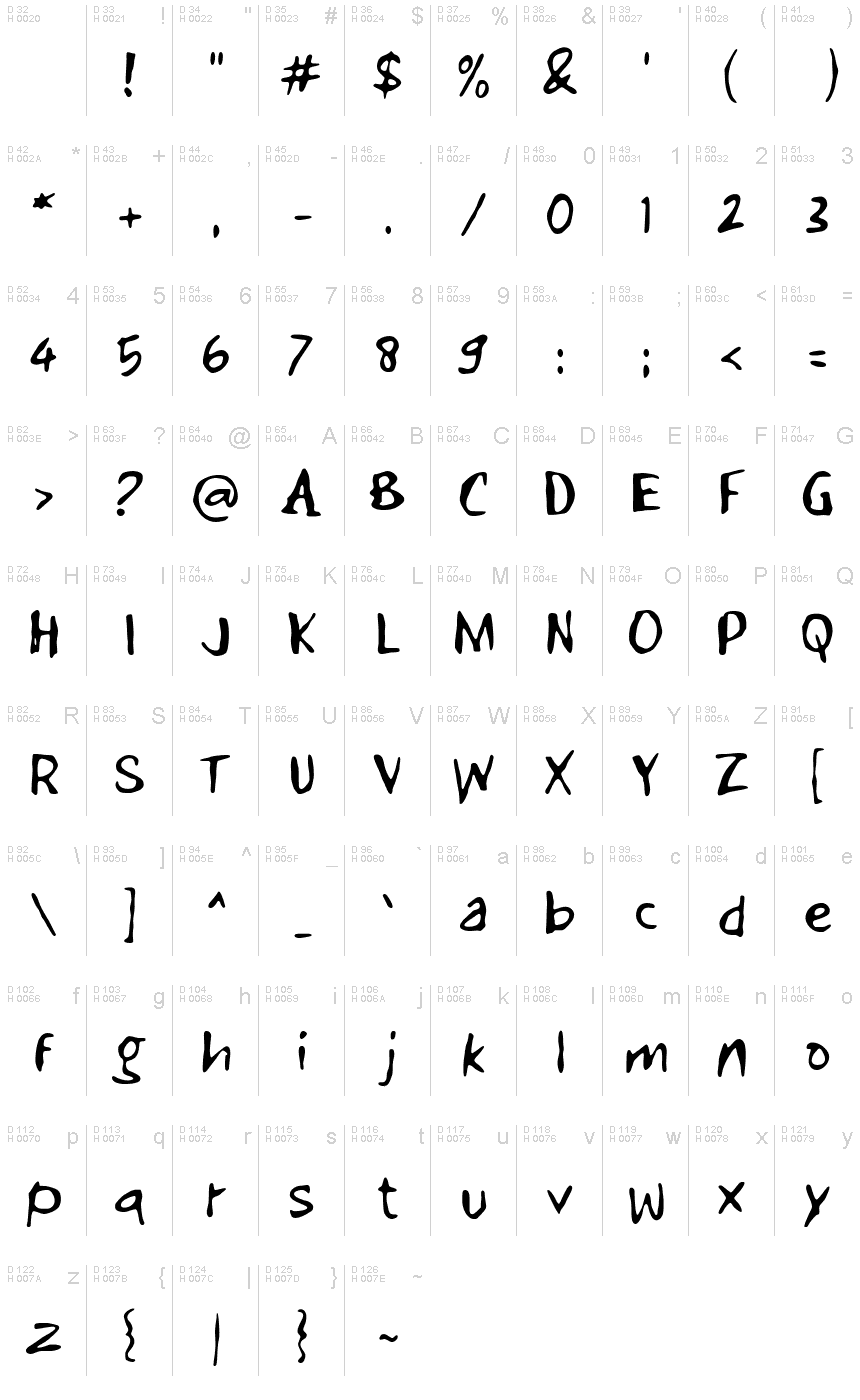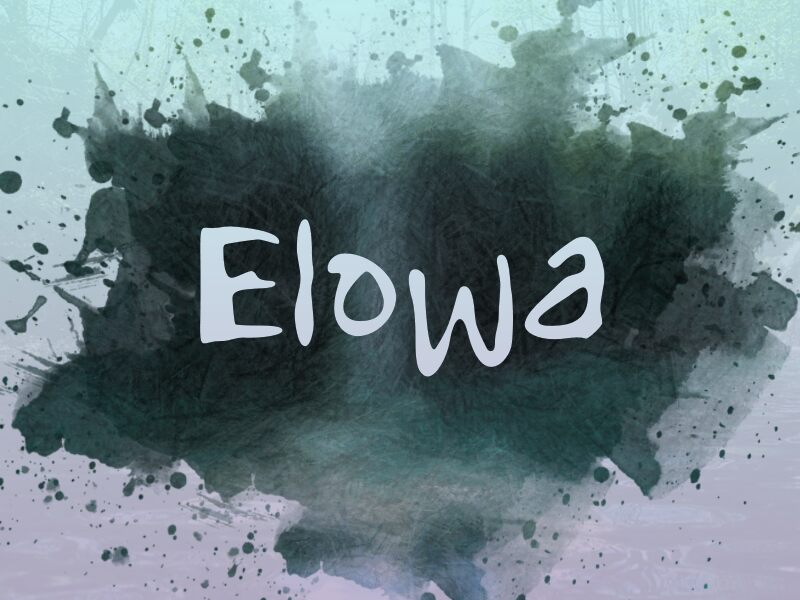
Elowa
Elowa, a bold and bouncy brush font by wep, adds a playful touch to your creative projects.
Its energetic strokes and dynamic curves make it perfect for designing eye-catching logos that demand attention. With its distinct style and versatile weight, Elowa also enhances social media graphics, giving your posts a vibrant and engaging look. Captivate your audience with Elowa's lively personality on packaging designs, creating an unforgettable impression in the minds of your customers.
Let this expressive typeface inject excitement into your next branding endeavor or advertising campaign.